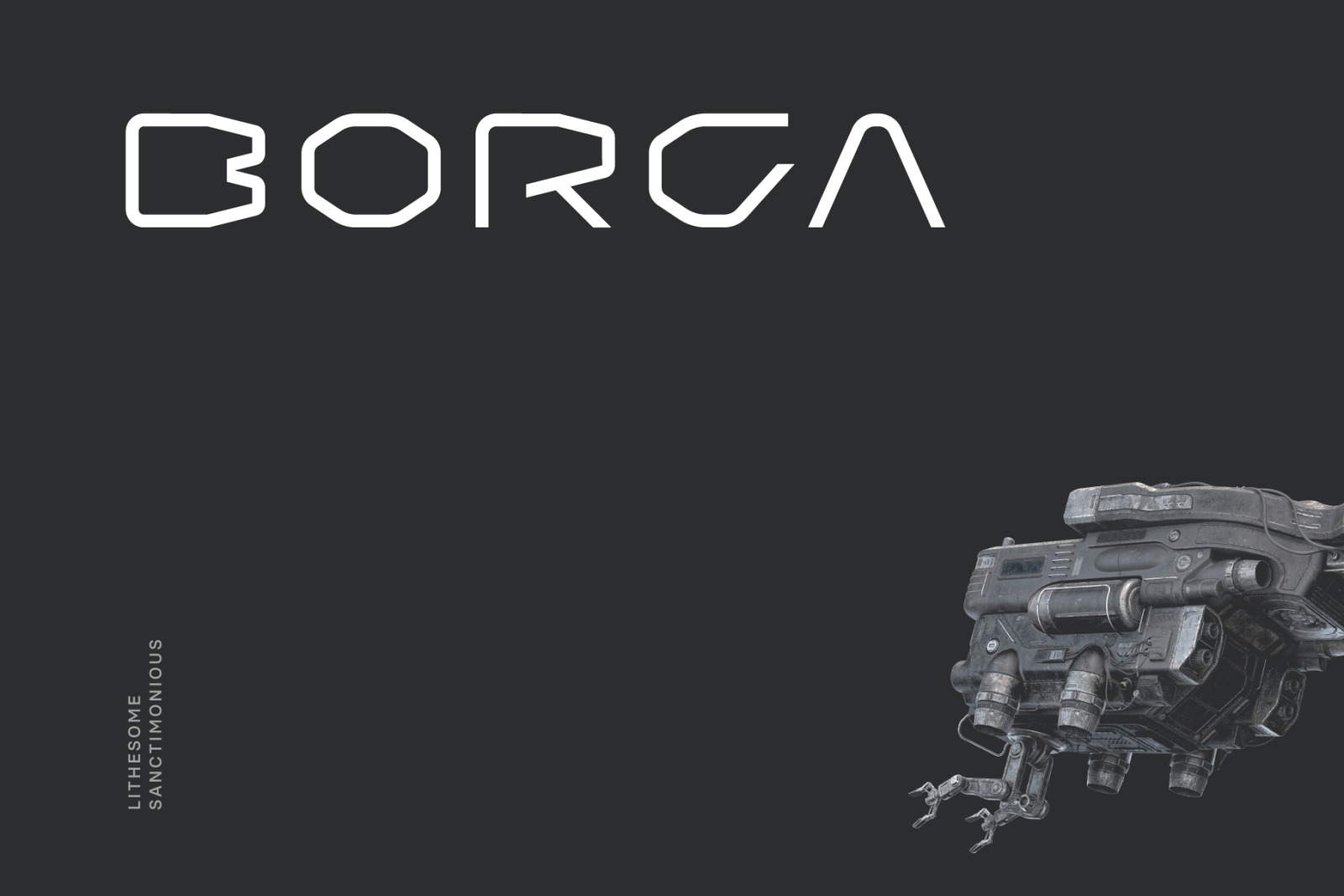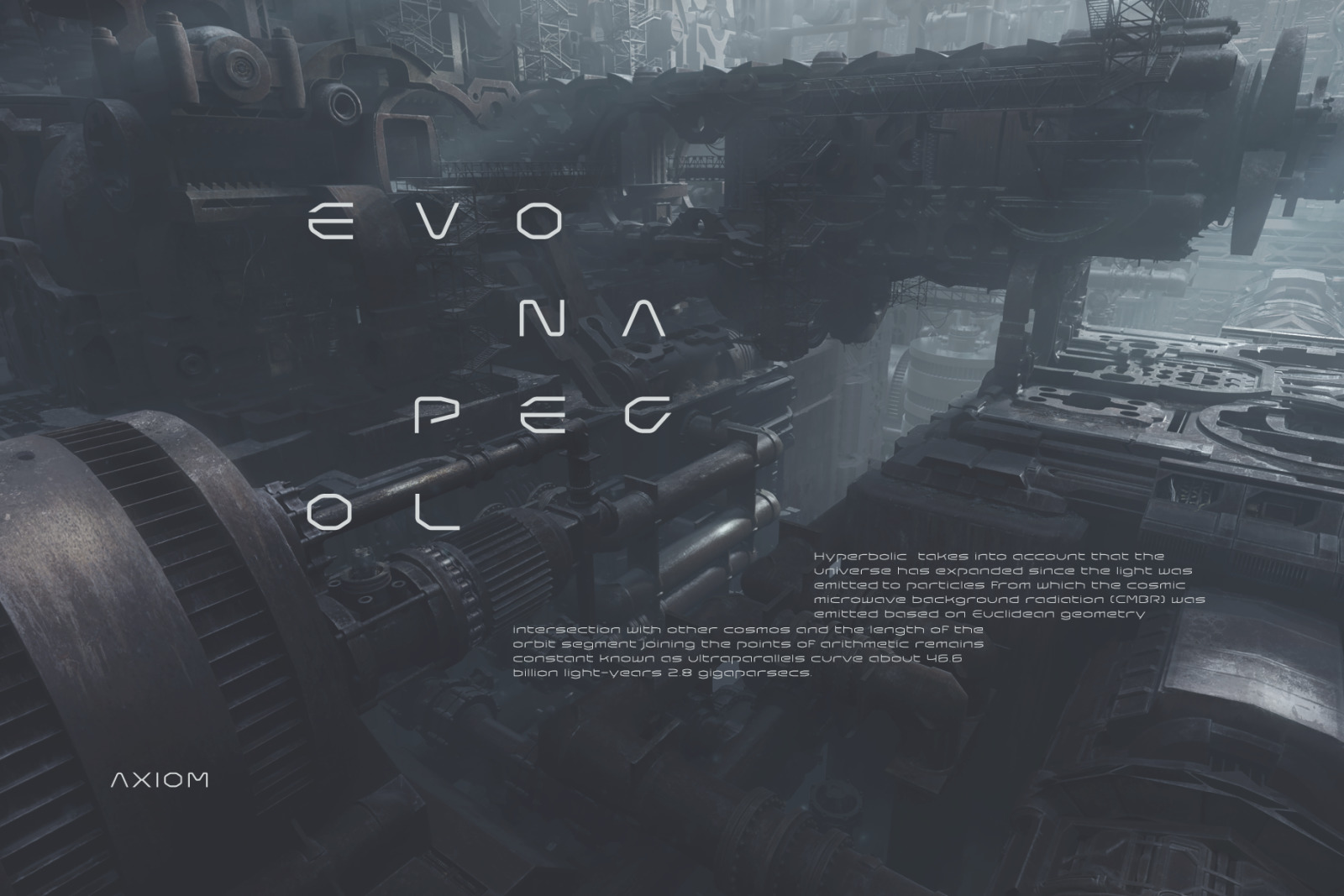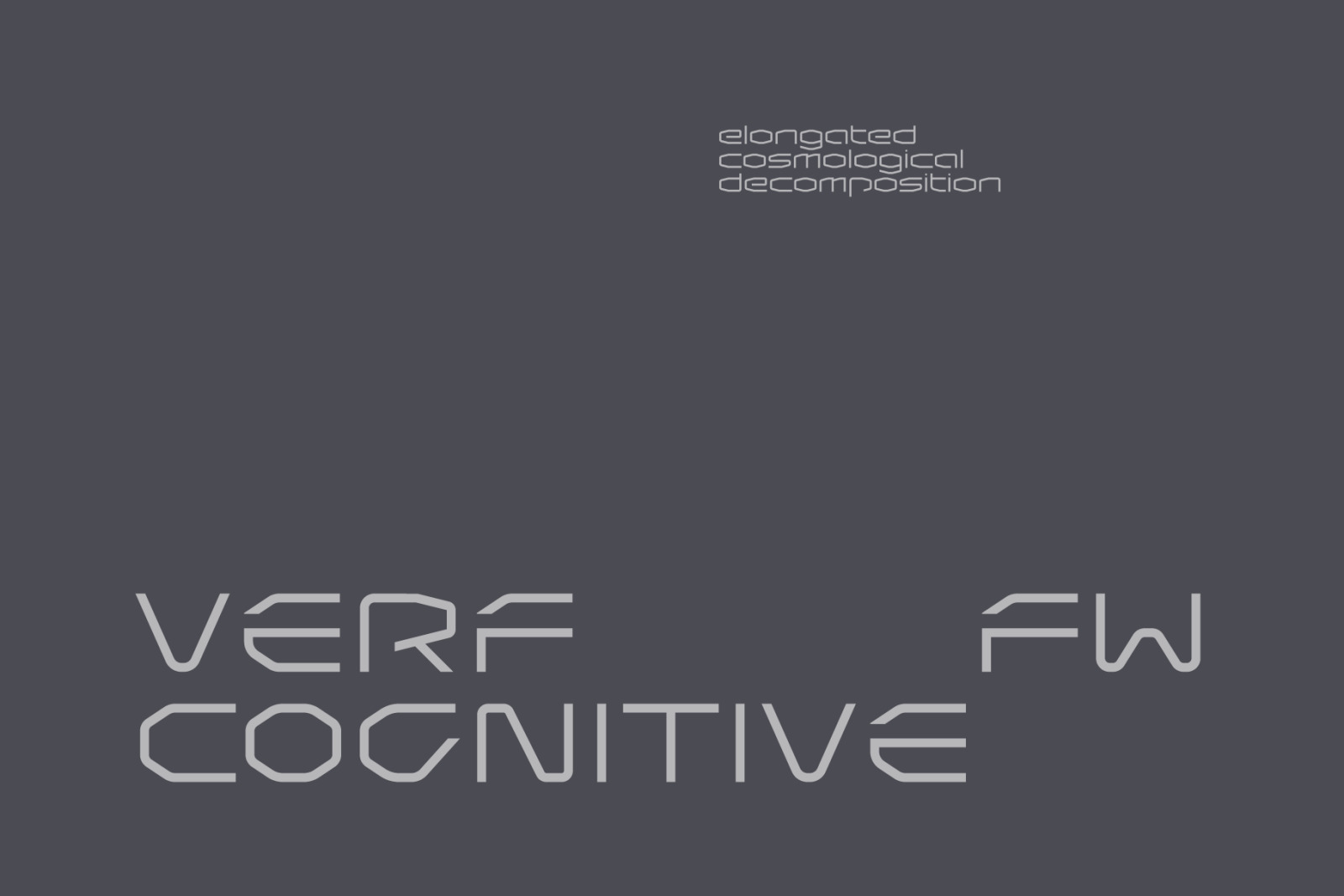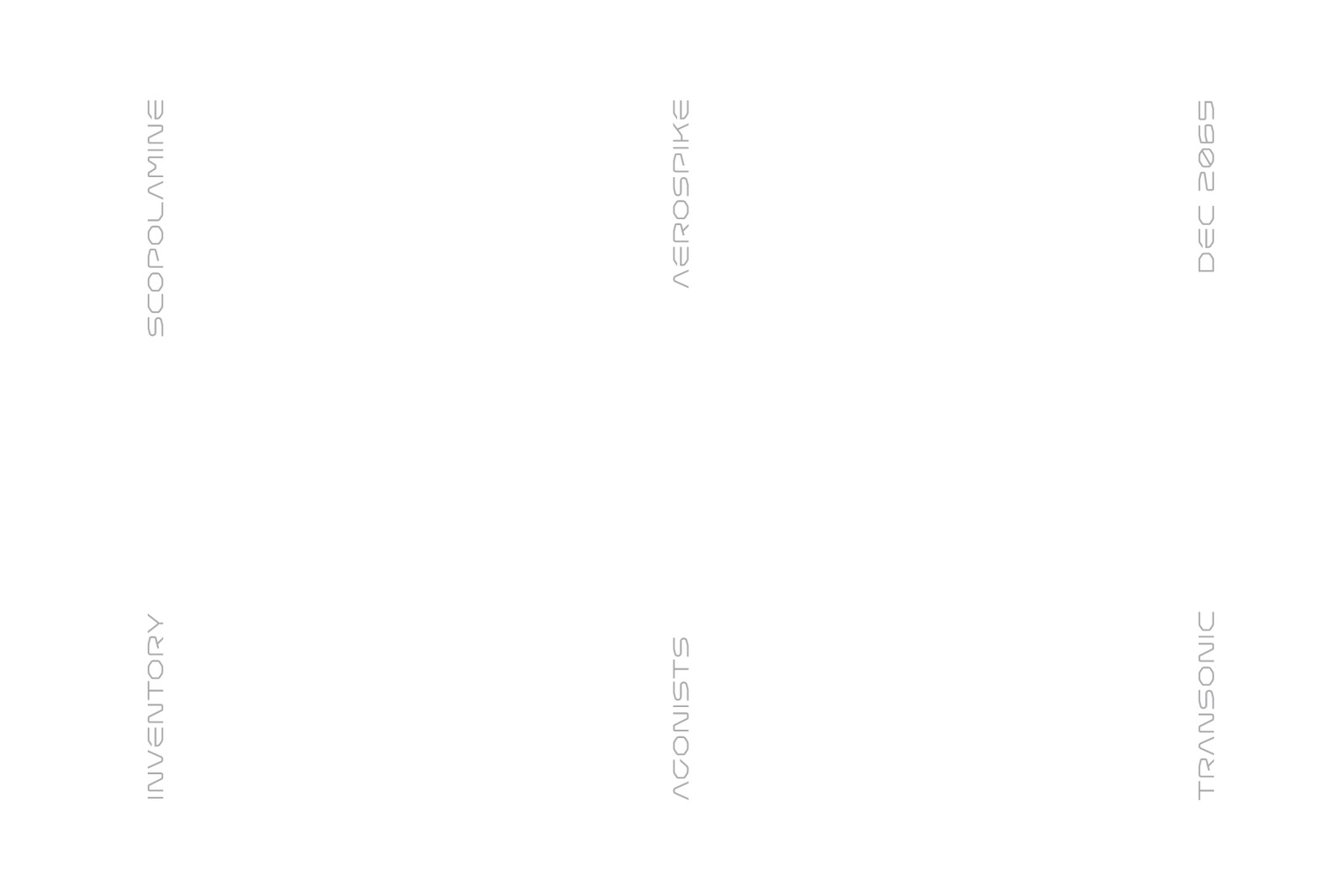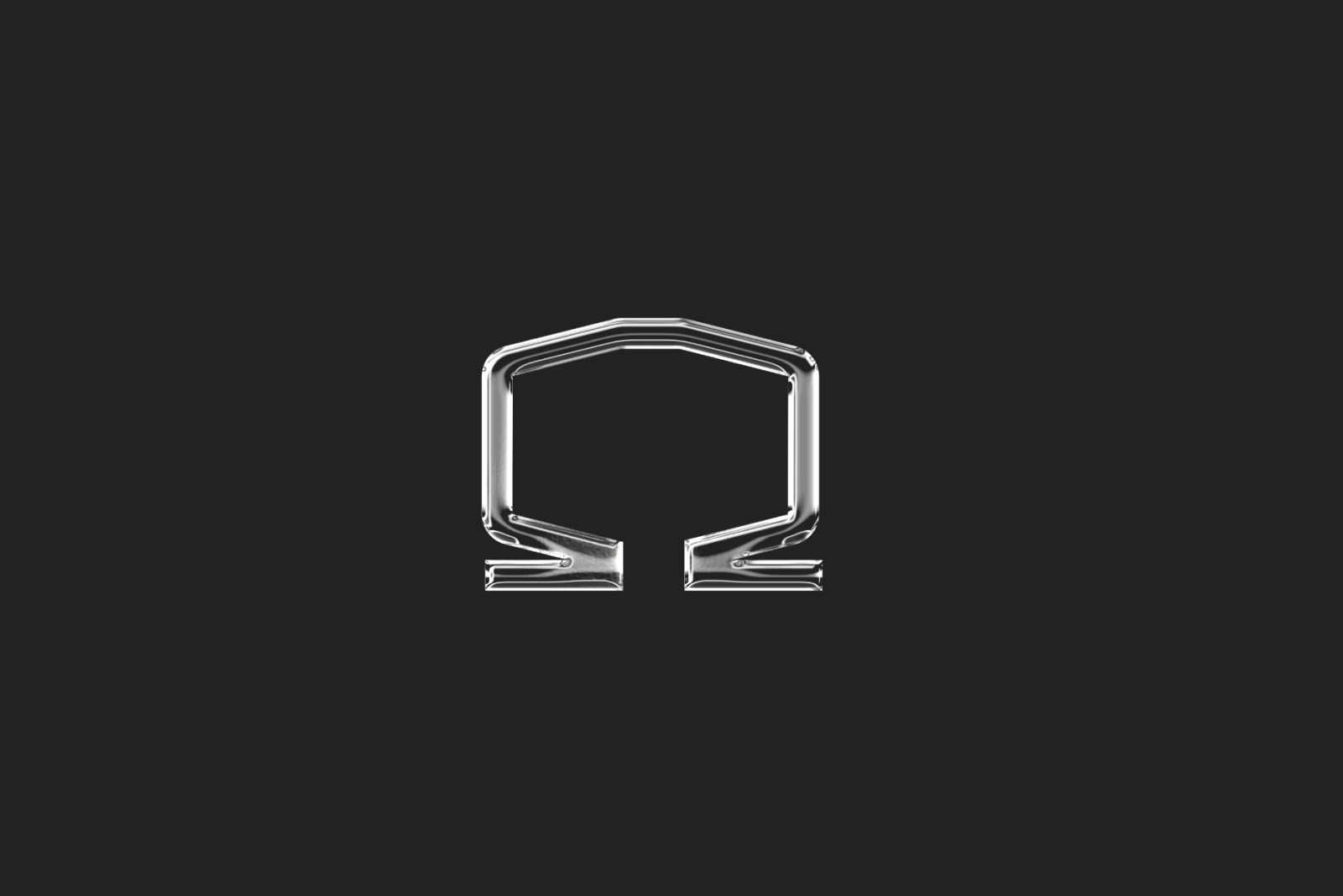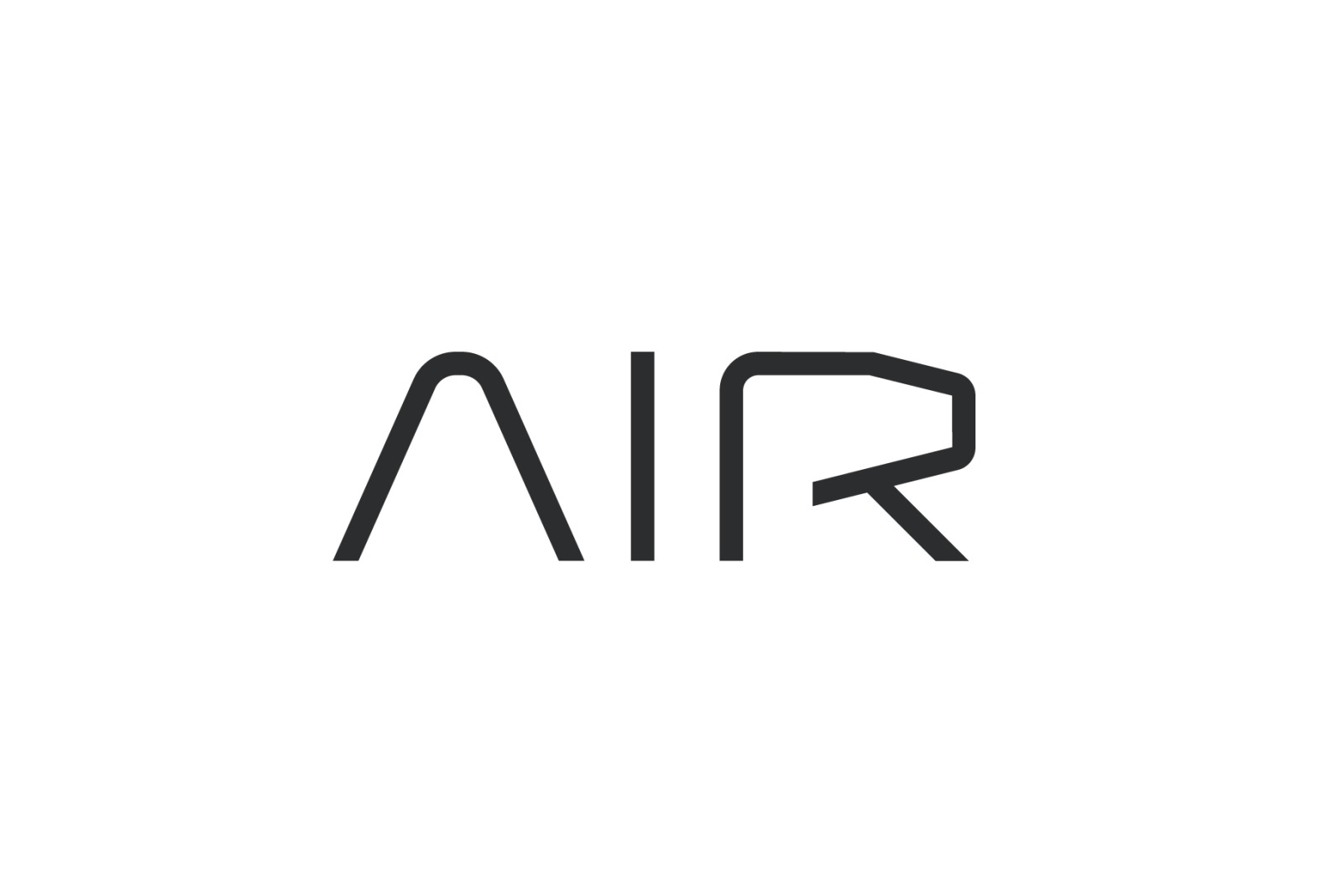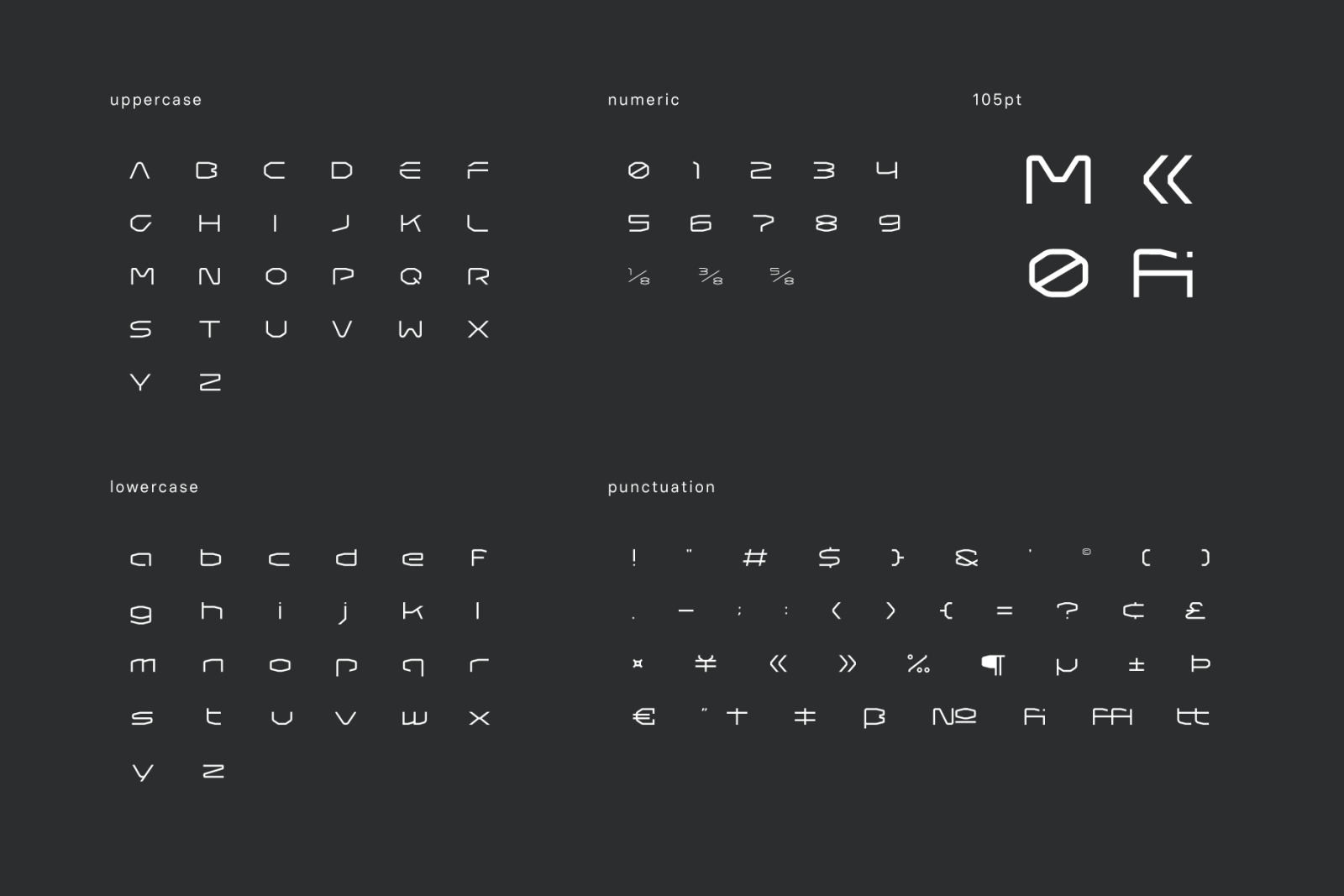
Borga Futuristic Tech Font
Borga is a lithesome sanctimonious tech display typeface apt for headline, editorial, branding, packaging, printed materials and typographic applications. 150+ glyphs with ligatures and fractions provided in opentype .otf and .woff format.